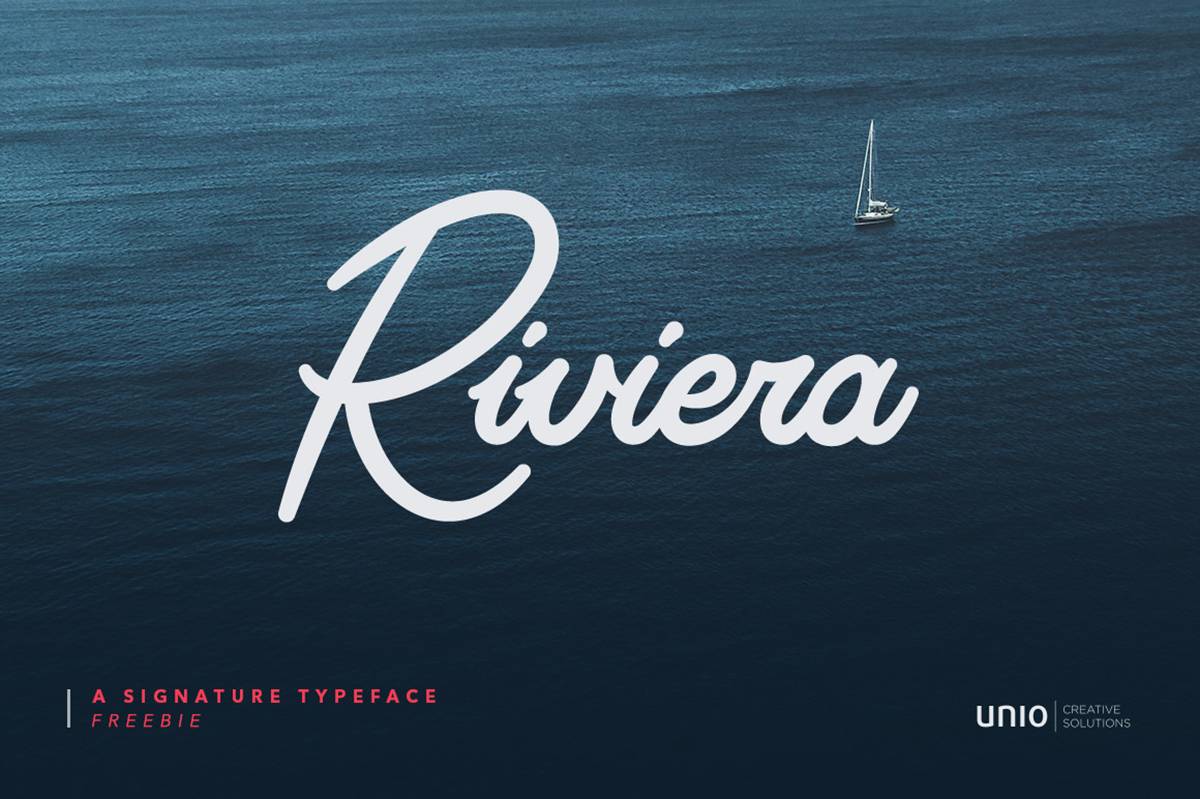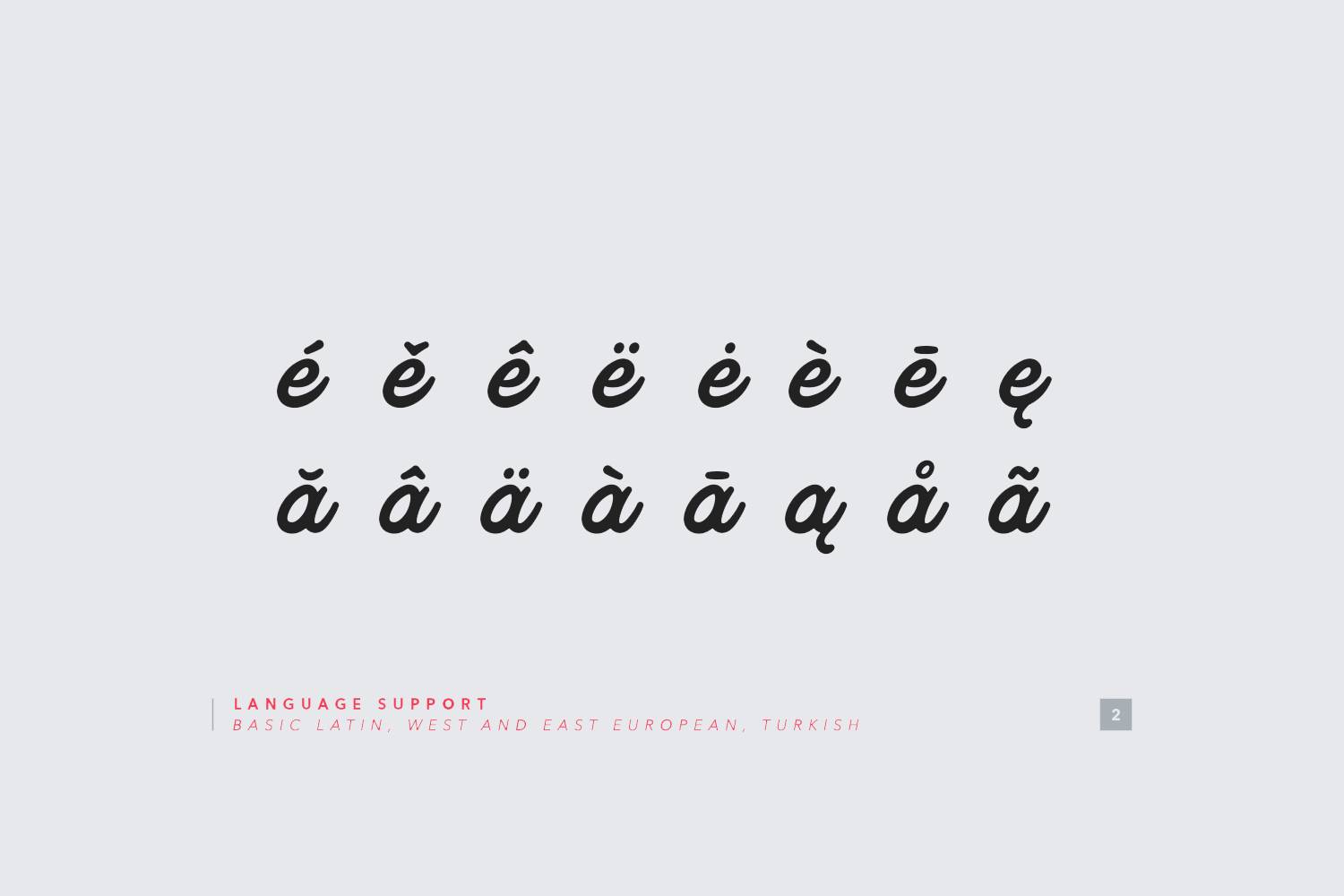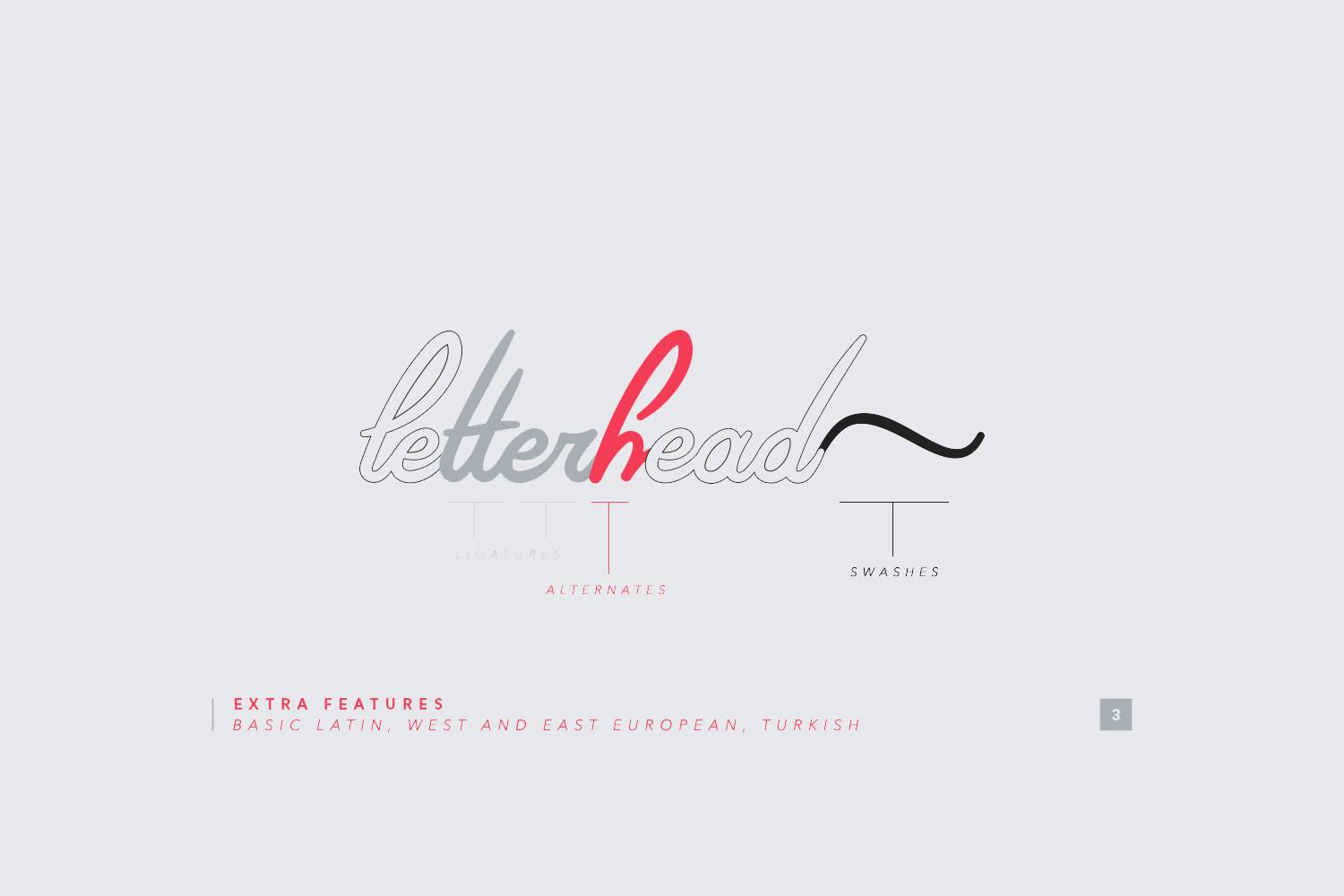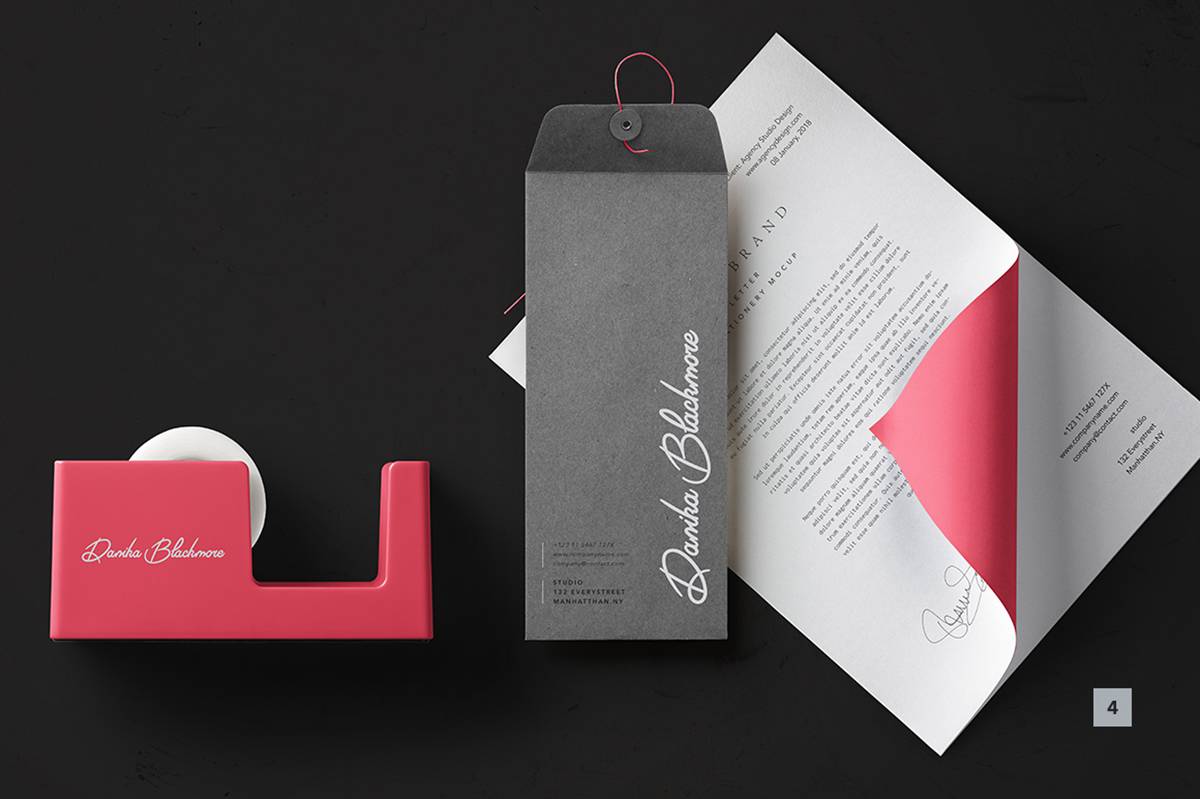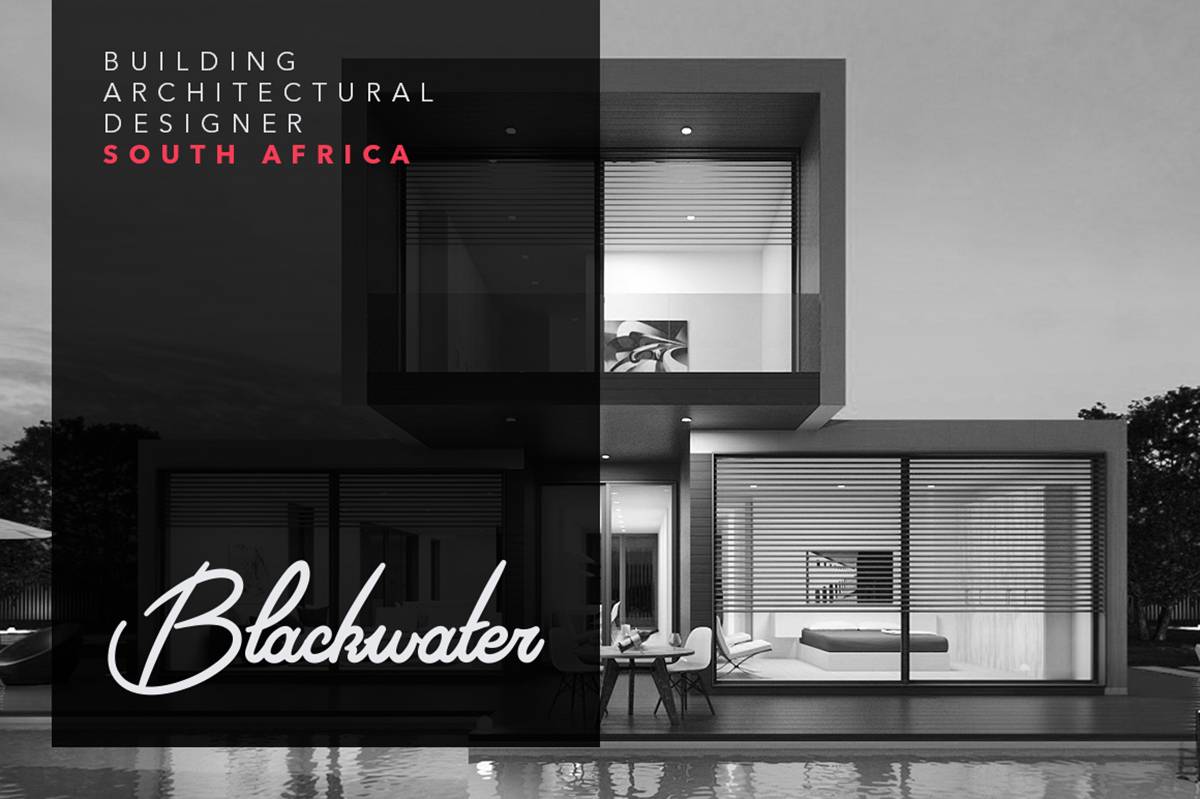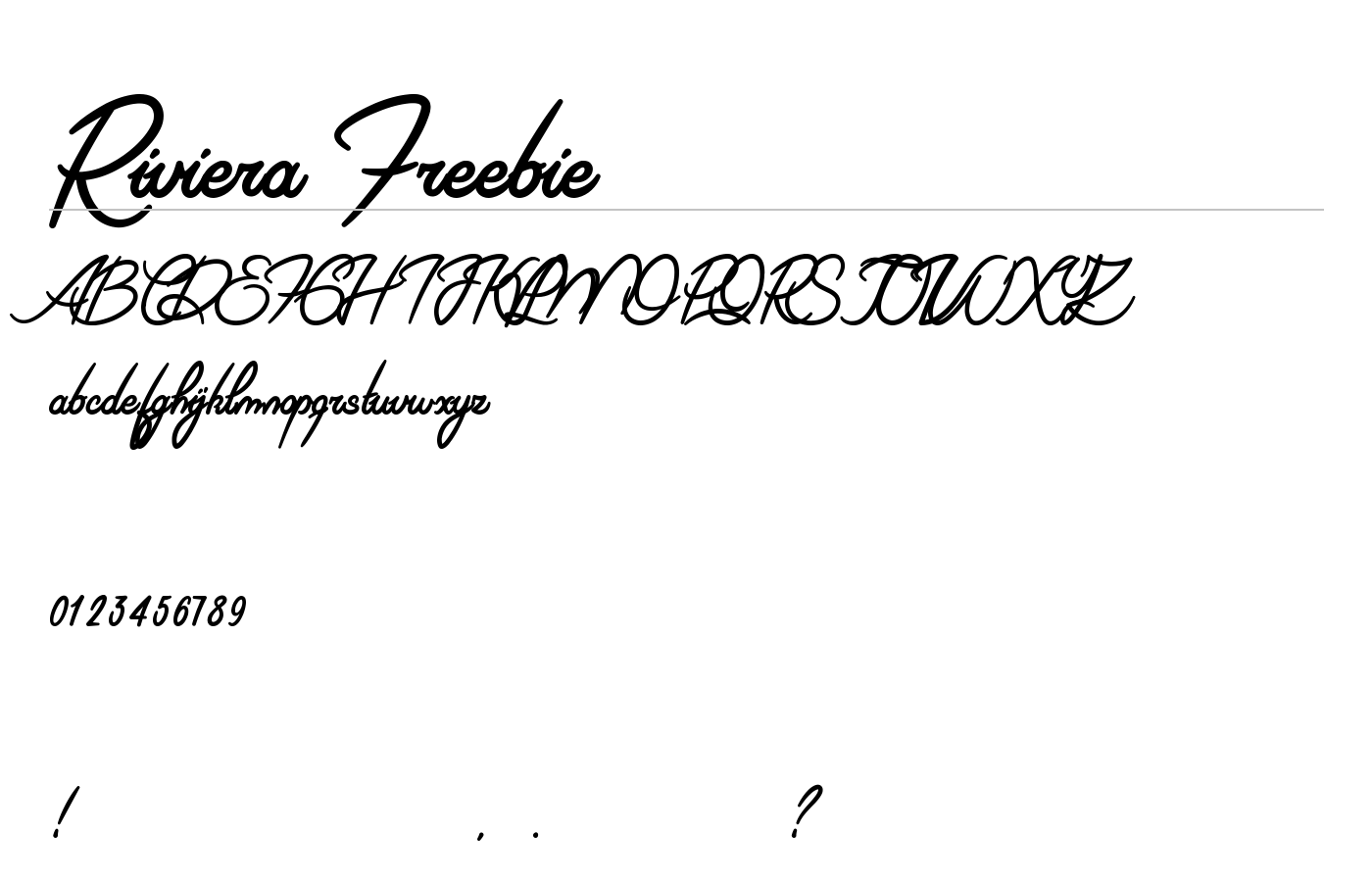
Riviera is a delicate script font characterized by its elegant, flowing strokes and tightly connected letters that create a sophisticated handwritten feel. Its slender, slightly condensed forms with moderate contrast and cursive styling make it ideal for luxury branding, invitations, and refined editorial work where a graceful and personal touch is desired. This font works best in headlines and decorative uses, bringing a sense of charm and class to any design.
Riviera Font
About Riviera Font
| Font family | Riviera Font |
| Designer | Bruno Pierini |